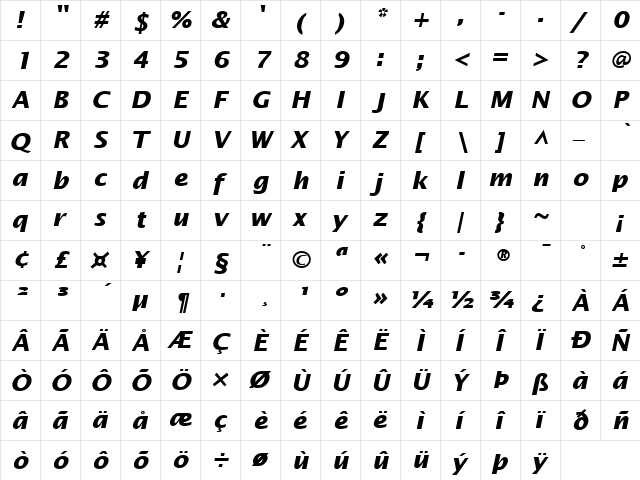
LucidaSans-BoldItalic Regular
Design Context for LucidaSans-BoldItalic Typeface
LucidaSans-BoldItalic offers clean, dependable letterforms without strong stylistic allegiance, making it a practical choice for designers who need flexibility. The slanted form adds forward momentum and visual energy. Its bold stroke weight gives it real presence on the page.
Pro Tip: Use LucidaSans-BoldItalic for emphasis, pull quotes, and subheadings where its slanted energy can add rhythm to the layout.